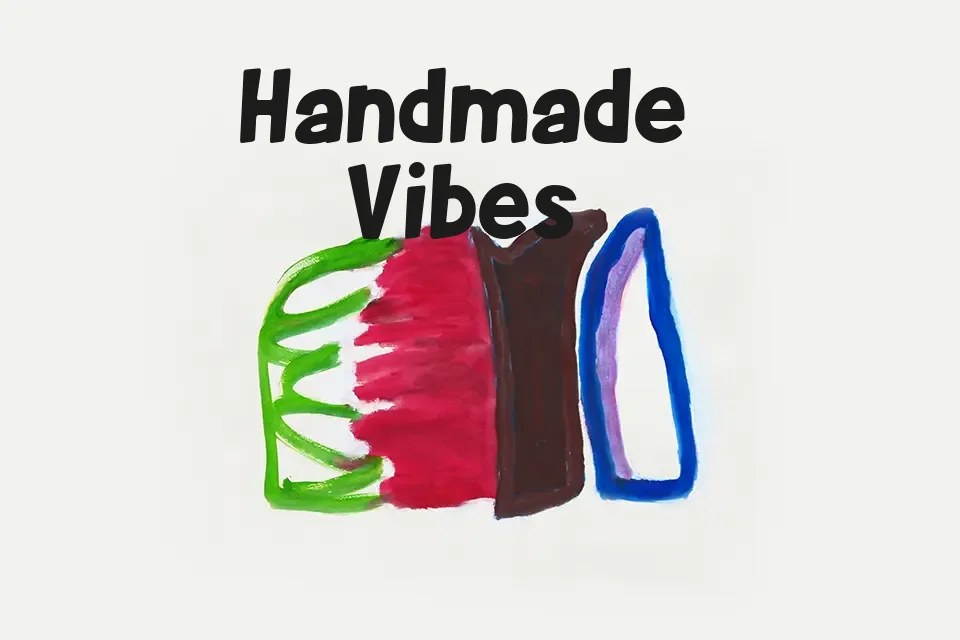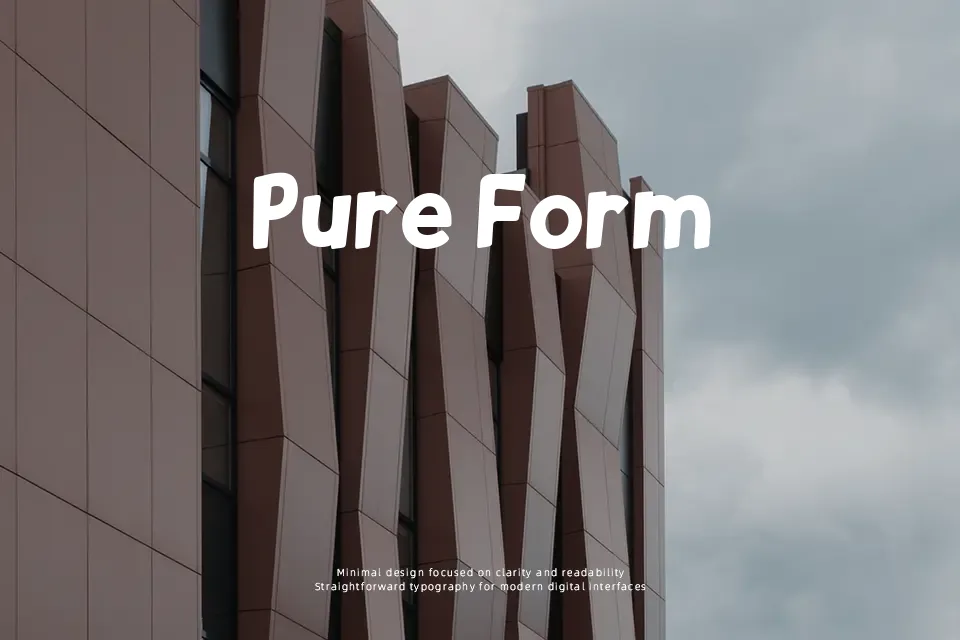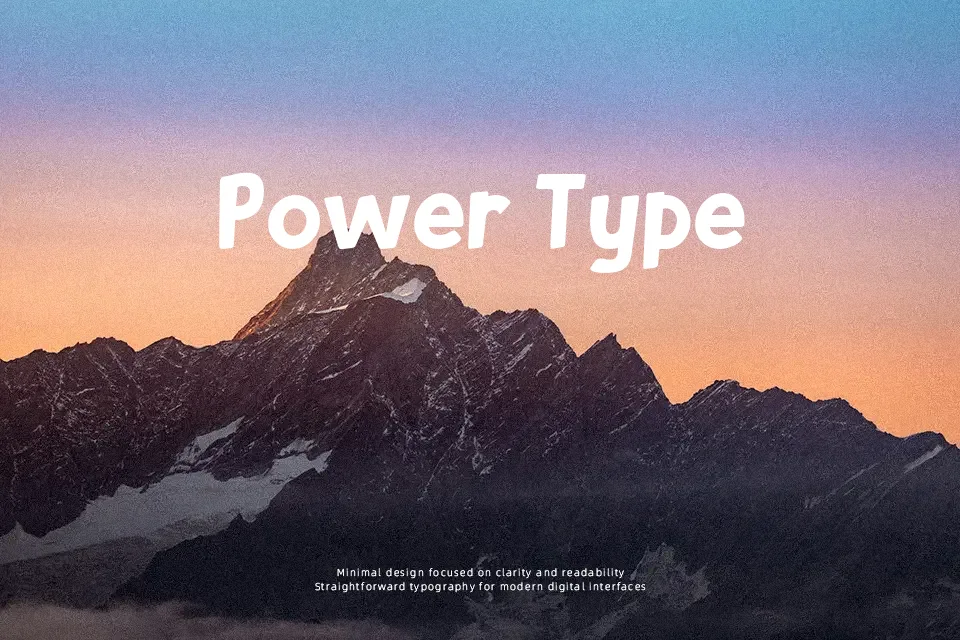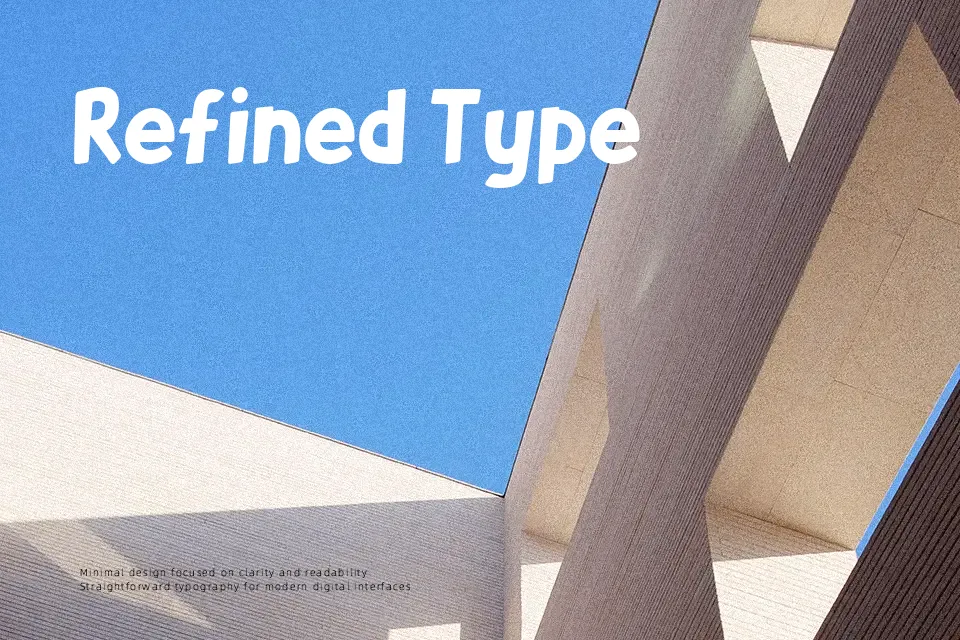
Brootahh Font
Brootahh Font combines chunky, uneven strokes with a loose sans serif structure, so letters feel hand-drawn and a bit wobbly instead of mechanically clean. The spacing is fairly tight, which helps headlines feel compact and energetic rather than airy. Overall it reads as a casual, comic-style display font that leans toward children’s themes, games, and lighthearted products rather than corporate work. It works especially well on posters, YouTube thumbnails, or packaging where you want noise, motion, and a bit of chaos. On the other hand, longer paragraphs, serious editorial layouts, or luxury branding will quickly feel mismatched, and the quirky distortion can become tiring at small sizes.
kids product packaging and titles
comic-style posters and event flyers
playful gaming or streaming thumbnails
loud social media graphics
long body text or dense paragraphs
formal or minimalist brand identities
serious editorial or corporate reports
small UI labels or system text
Perfect for branding, gaming, and kids, with a bold and comic style.